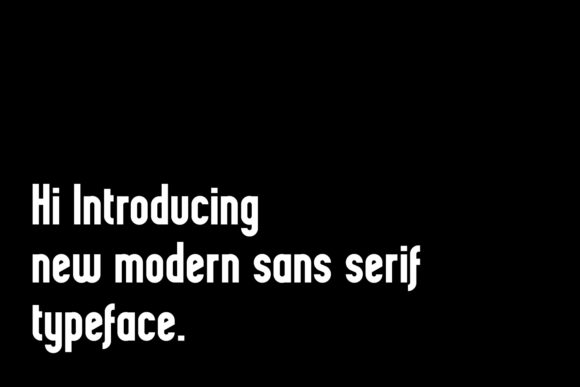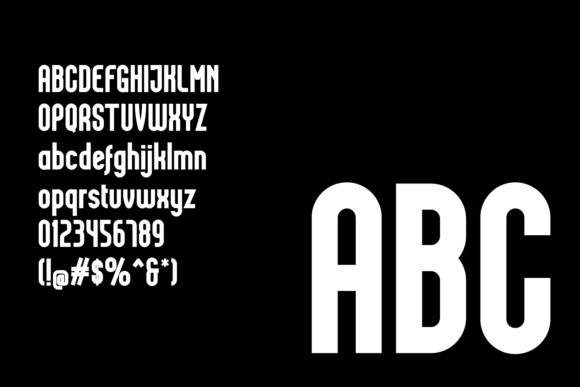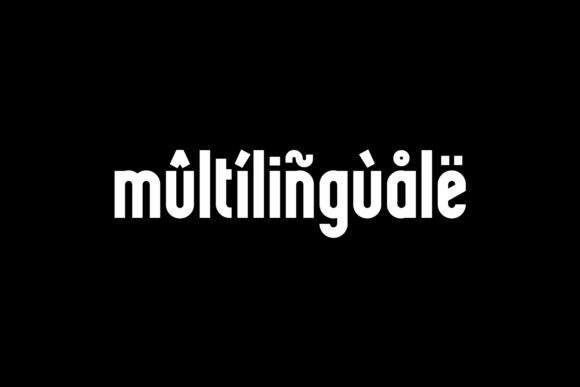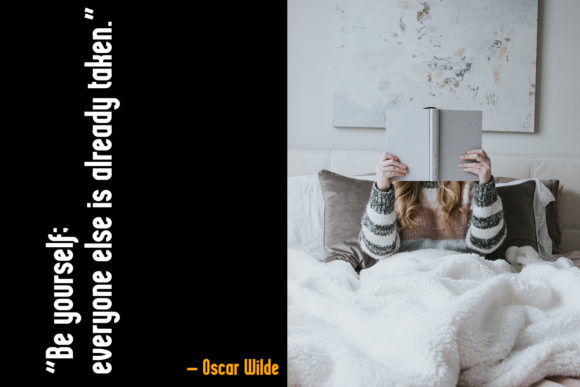
The Delvon Bold Font: A Designer’s New Best Friend
I’ll never forget the time I was working on a project for a client who wanted a modern, sleek look. I had spent hours scouring the internet for the perfect font, but nothing seemed quite right. That was until I stumbled upon Delvon Bold, a minimal and neat sans serif font that instantly caught my eye. In this article, I’ll share my experience with Delvon Bold, its features, and how to make the most of it in your designs.
An Honest Review of Delvon Bold
- ✨ Clean and Minimal Design: Delvon Bold’s simple, uncluttered design makes it perfect for a wide range of projects, from modern brochures to trendy websites.
- ✅ High Versatility: This font can easily be matched with an incredibly large set of projects, making it a great addition to any designer’s toolkit.
- 💡 Ease of Use: Delvon Bold is easy to read and works well in both digital and print formats.
While Delvon Bold is an excellent font, there are a few things to keep in mind:
- 🤔 Limited Emotional Expression: As a sans serif font, Delvon Bold may not convey the same level of emotion as a serif font.
- ⚠️ Overuse: Using Delvon Bold for too much text can make it feel overwhelming, so be sure to balance it with other fonts or use it sparingly.
Delvon Bold comes with a range of OpenType features and glyphs that can enhance your designs. Here are a few tips for accessing these features:
The Story Behind Delvon Bold
Delvon Bold was designed with the modern designer in mind. Its creator wanted to craft a font that was both clean and versatile, suitable for a wide range of projects. The result is a font that is both stylish and functional.
| Font Name | Delvon Bold Font |
| Author | madeDeduk |
Q: What type of projects is Delvon Bold best suited for?
A: Delvon Bold is suitable for a wide range of projects, including modern brochures, trendy websites, and digital applications.
Q: Is Delvon Bold easy to read?
A: Yes, Delvon Bold is designed to be easy to read, making it suitable for both digital and print formats.
Q: Can I use Delvon Bold with other fonts?
A: Yes, Delvon Bold can be paired with a variety of fonts to create a unique and stylish look.